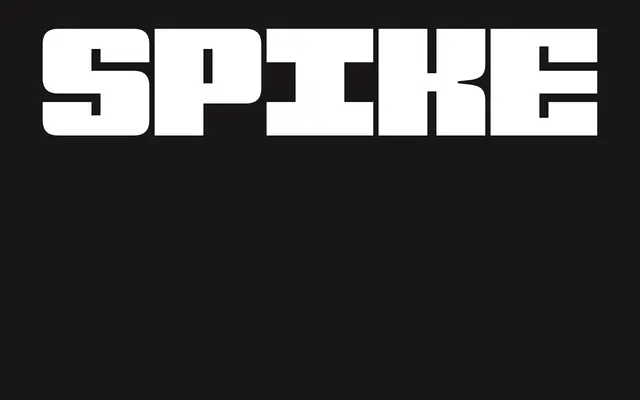
VTC Spike
Vocal Type · Tré Seals · 2021
A three-style display family designed by Tré Seals to accompany his full book design for Spike Lee's monograph, drawing on jersey numerals, film posters and the iconic rings from Do The Right Thing.
Designed in parallel with a five-typeface custom commission for Spike Lee's book, VTC Spike distils the visual language of Lee's career into a single headline family. Square geometric counters run through the entire design, sourced from a typographic tone board of film poster lettering; the numerals reference jersey graphics from the Knicks, Michael Jordan and Jackie Robinson. The result is a typeface that reads as both a portrait of its subject and a considered piece of Afro-American cultural type design.
A display typeface characterised by square geometric counters drawn from film poster lettering and jersey numerals, placing it firmly in the display category with a geometric sensibility.